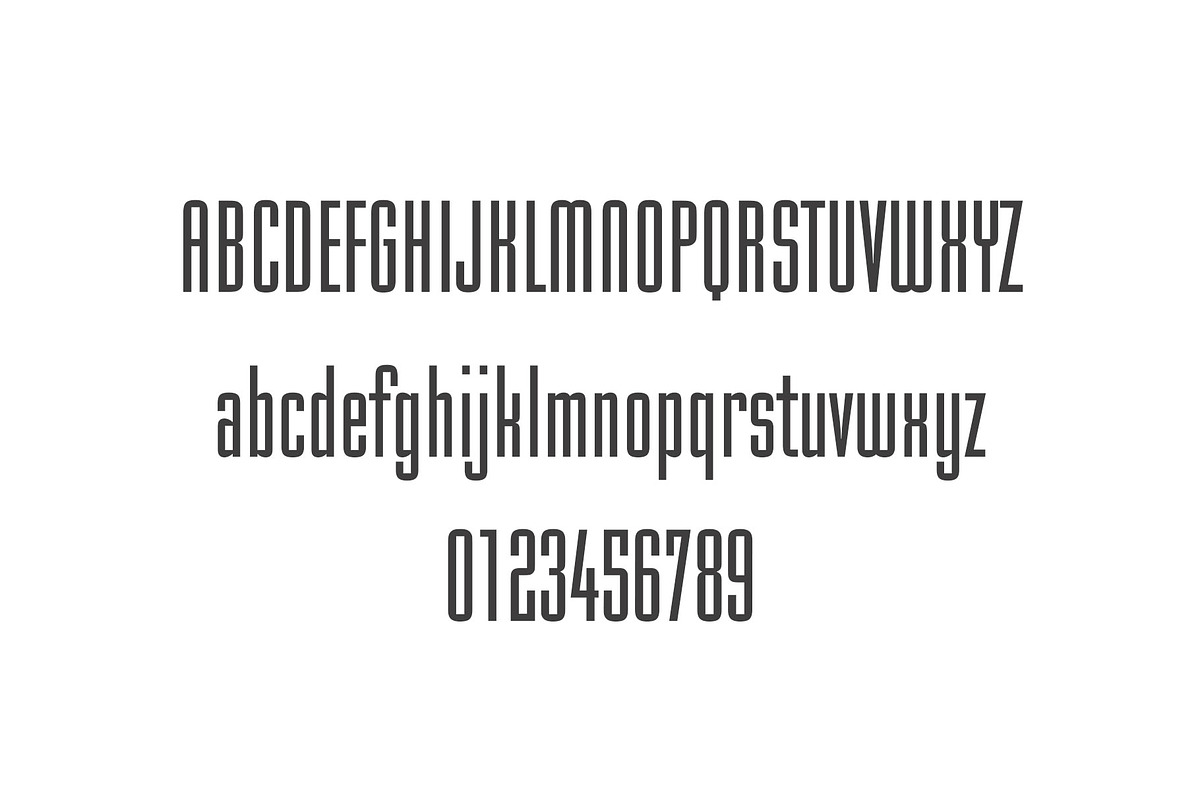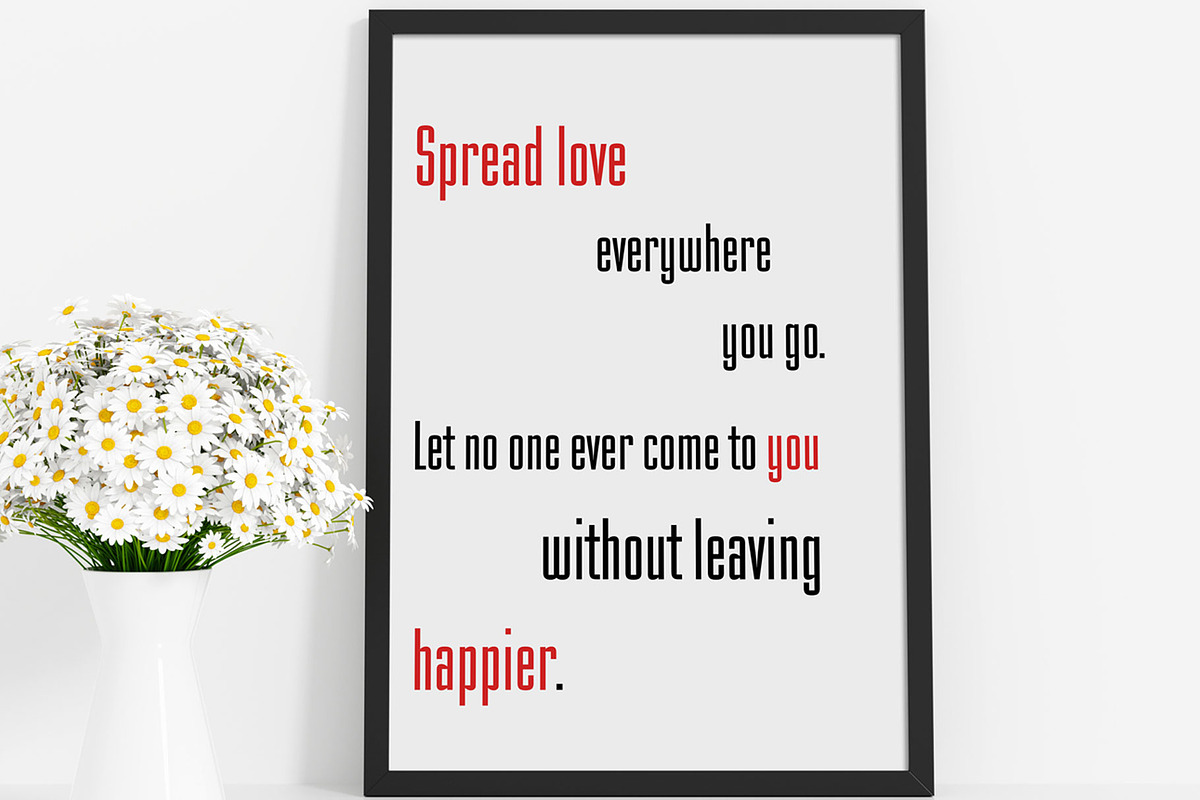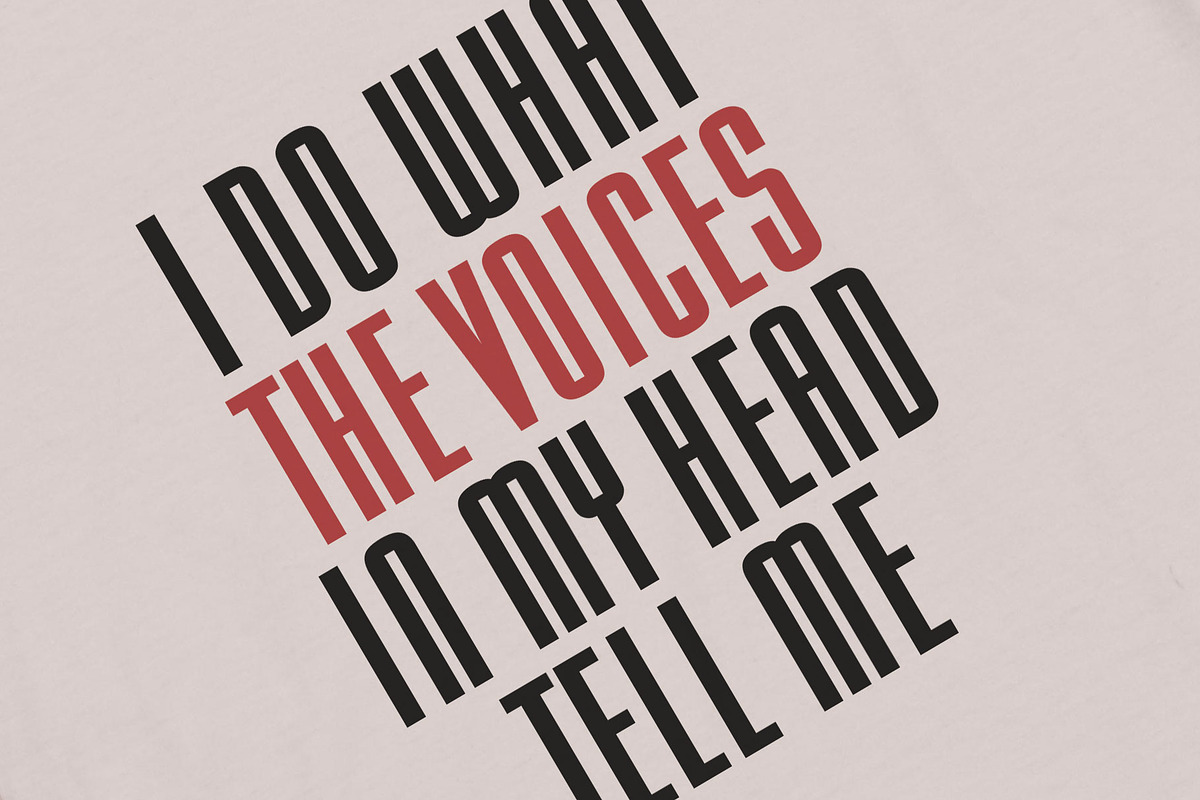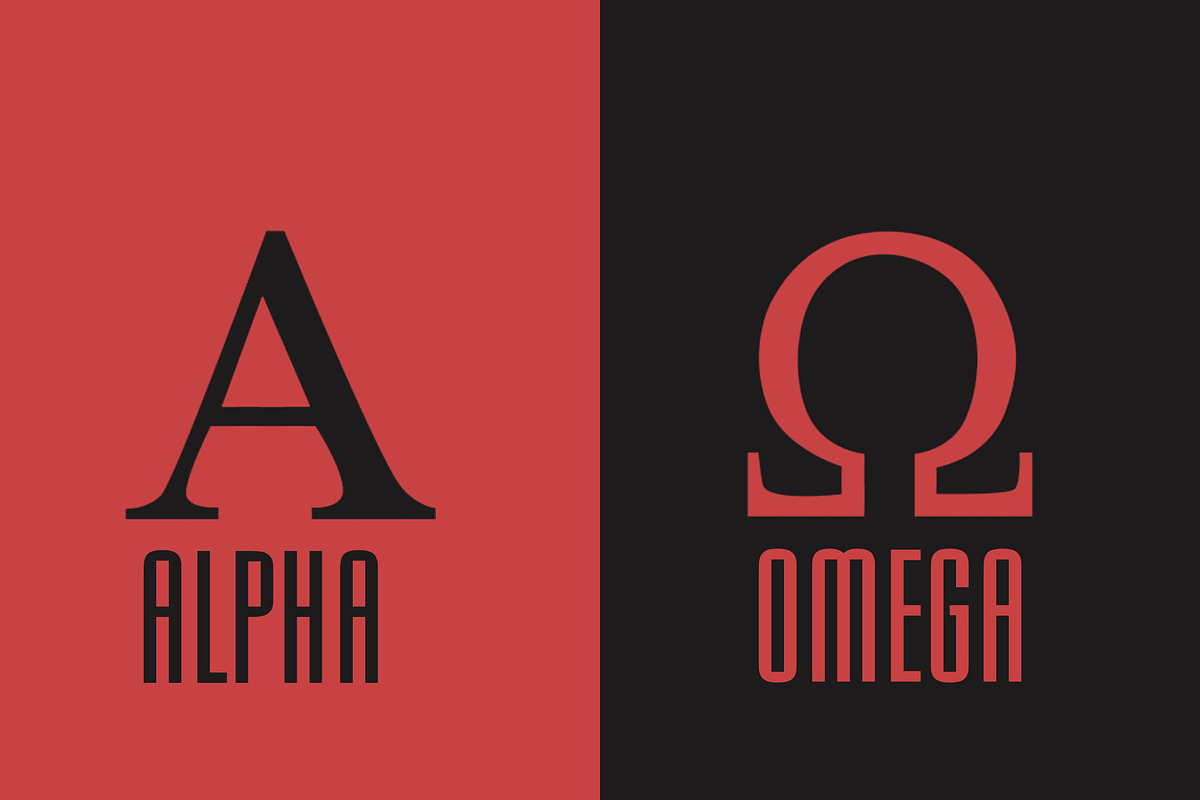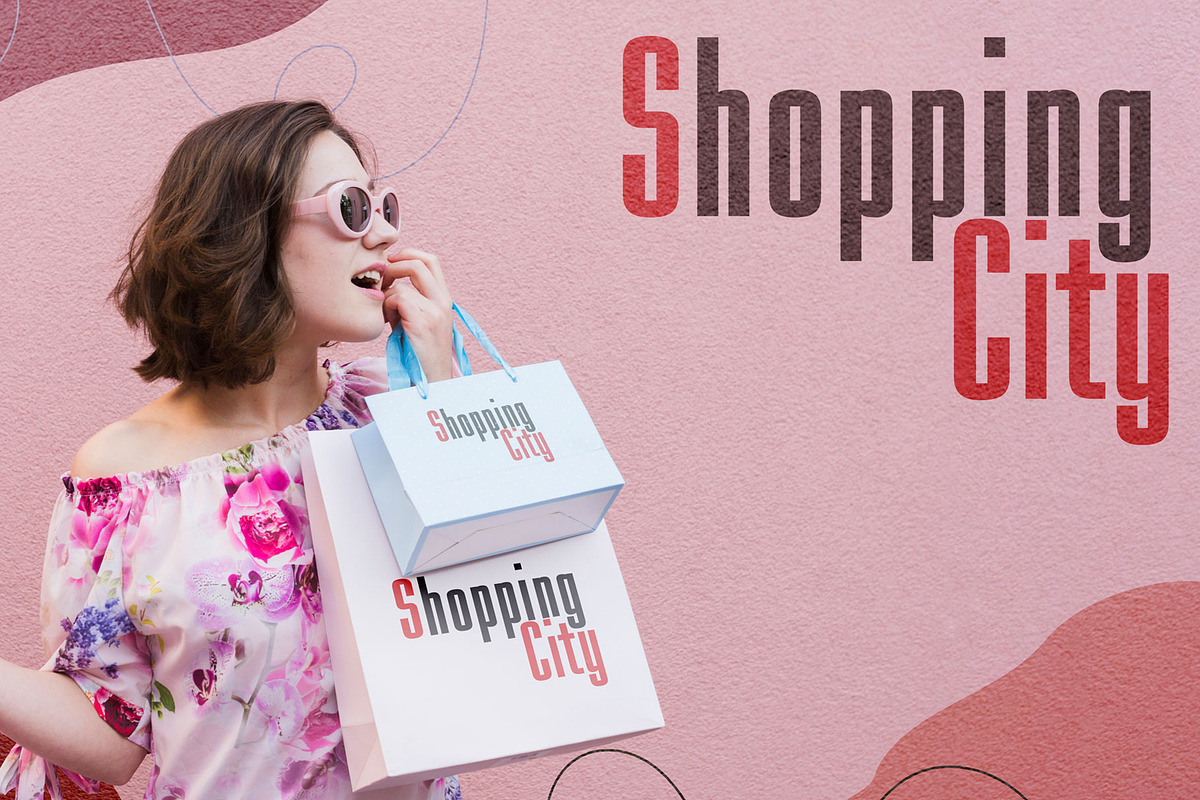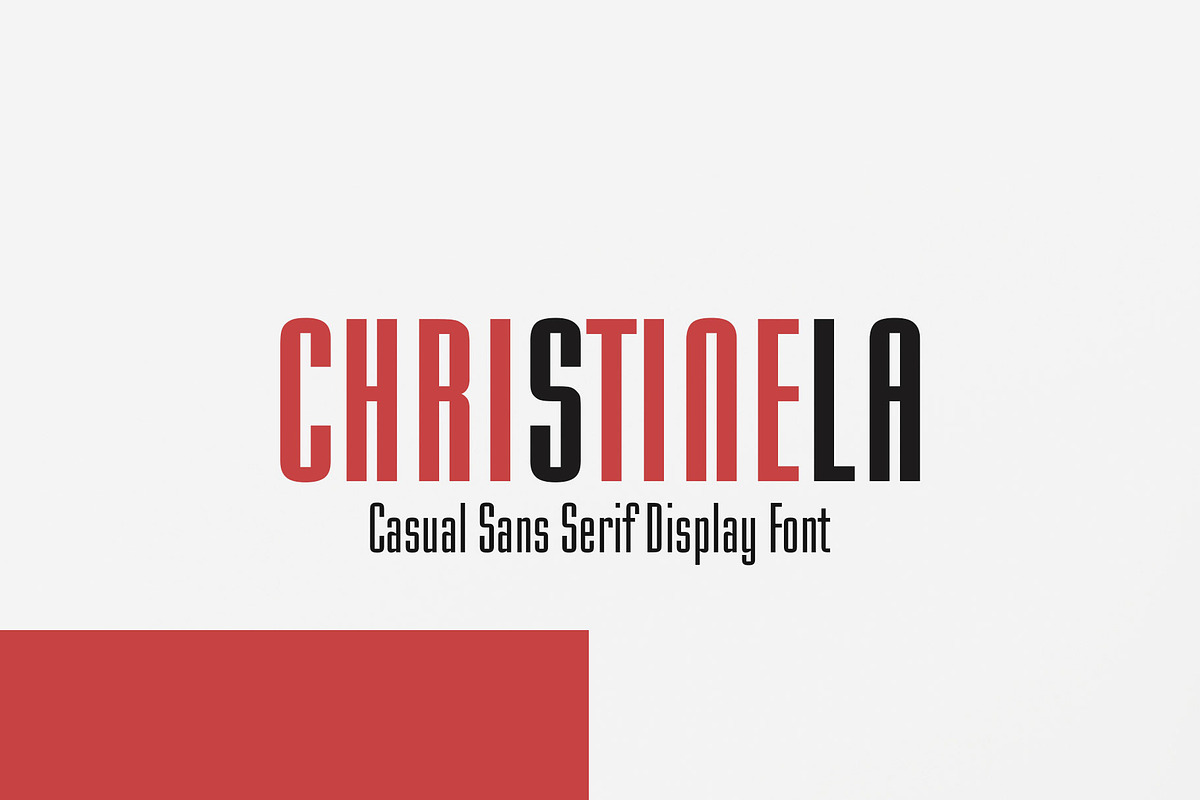
Christinela Sans Serif
Christinela is an elegant modern sans serif font inspired by vintage fonts. It perfectly represents modern and vintage esthetics.
The font is perfect for wedding elegant invitation cards, beauty and fashion package design, very suitable for books design, magazines typography, packaging, branding and more other creative project